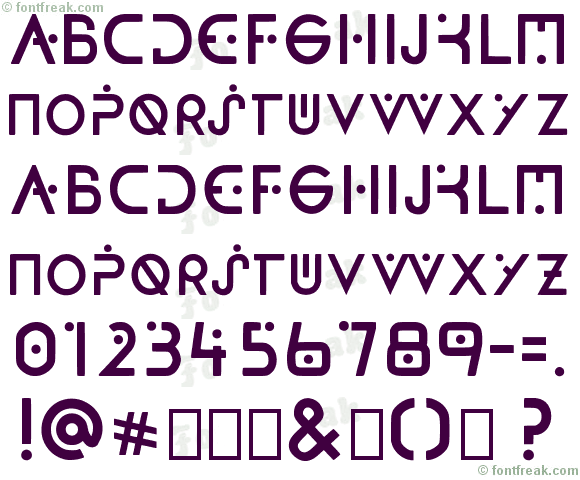
FoundationOne by rsperberg is a striking sans-serif font that combines modern aesthetics with functional design. Its clean lines and geometric forms create a contemporary feel, making it an ideal choice for a wide range of applications. The font features a medium stroke weight with subtle variations that enhance its visual appeal without compromising legibility. The generous spacing between characters contributes to a crisp, open appearance, allowing for easy reading in both print and digital formats.
This font is particularly well-suited for use in marketing materials, such as flyers and brochures, where clarity and impact are essential. It's also an excellent choice for website headers and user interfaces, lending a sleek, professional look to online content. For creative projects like branding and logo design, FoundationOne can elevate a brand's identity with its modern yet approachable style. Additionally, it works beautifully in editorial layouts and presentations, where a balance between sophistication and simplicity is desired.
Targeting graphic designers, small business owners, and content creators, FoundationOne offers versatility that appeals to a wide audience. Its free license makes it accessible for individuals and businesses looking to enhance their visual communication without incurring costs.
What sets FoundationOne apart is its perfect blend of style and readability. The font’s contemporary character and well-considered design elements make it stand out in a crowded typeface marketplace. Whether you are crafting a bold statement in a poster or ensuring clarity in a menu, the FoundationOne font free download provides a reliable option for any creative project. Its modern aesthetic and functional qualities are sure to elevate your designs, making it a valuable addition to any typographic toolkit.